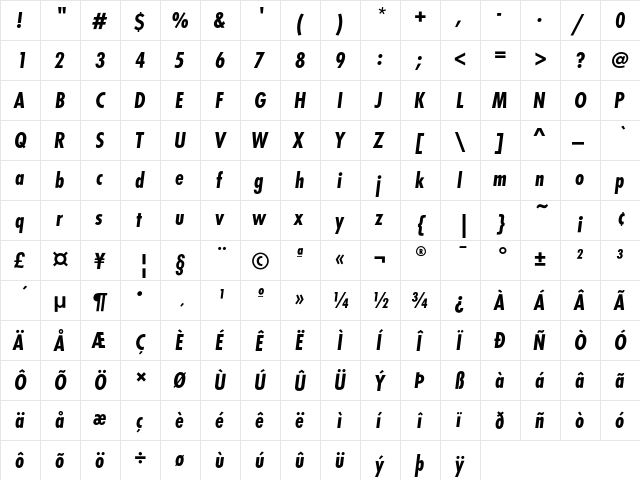
FuturaEF BoldCondObl Font Preview
Design Context for FuturaEF Typeface
FuturaEF has a distinctly futuristic character, with geometric precision and clean angles that feel at home in technology, gaming, and sci-fi contexts. Its bold stroke weight gives it real presence on the page. The condensed width makes it efficient for tight spaces without sacrificing legibility.
Pro Tip: Try FuturaEF with generous letter-spacing in UI labels and navigation — the geometric forms benefit from room to breathe.